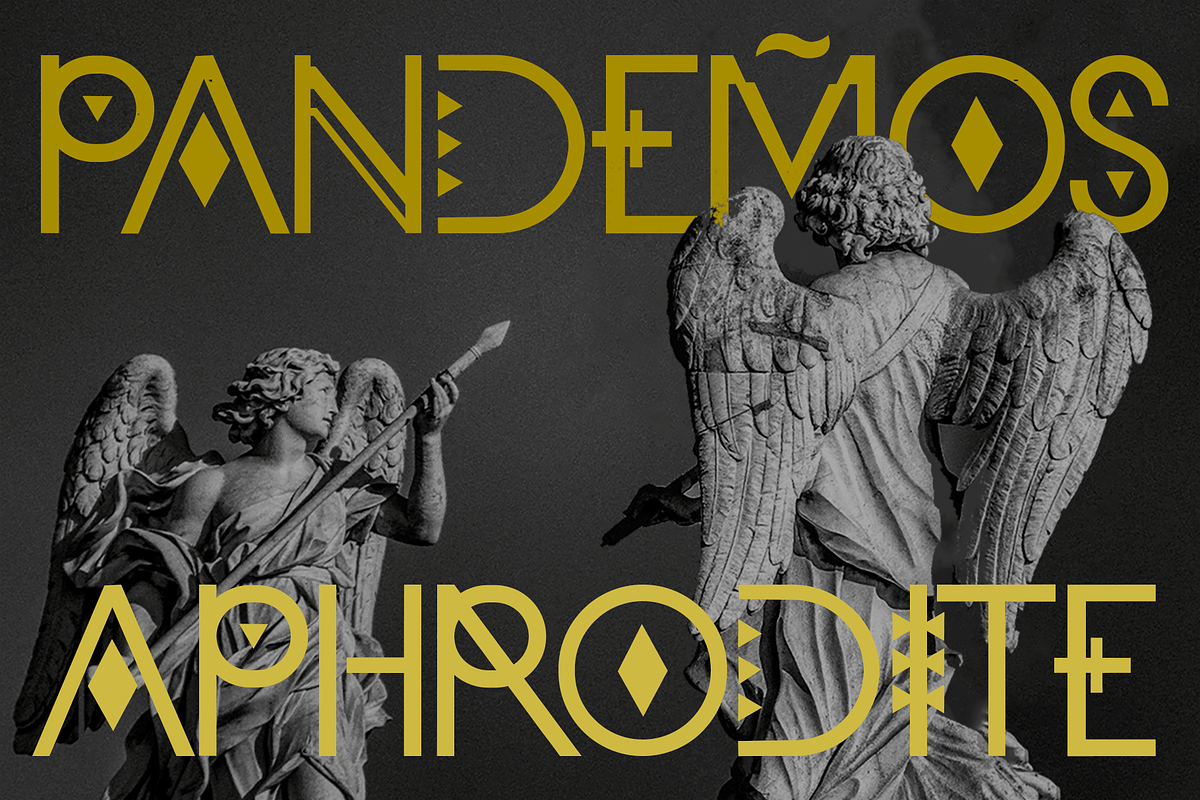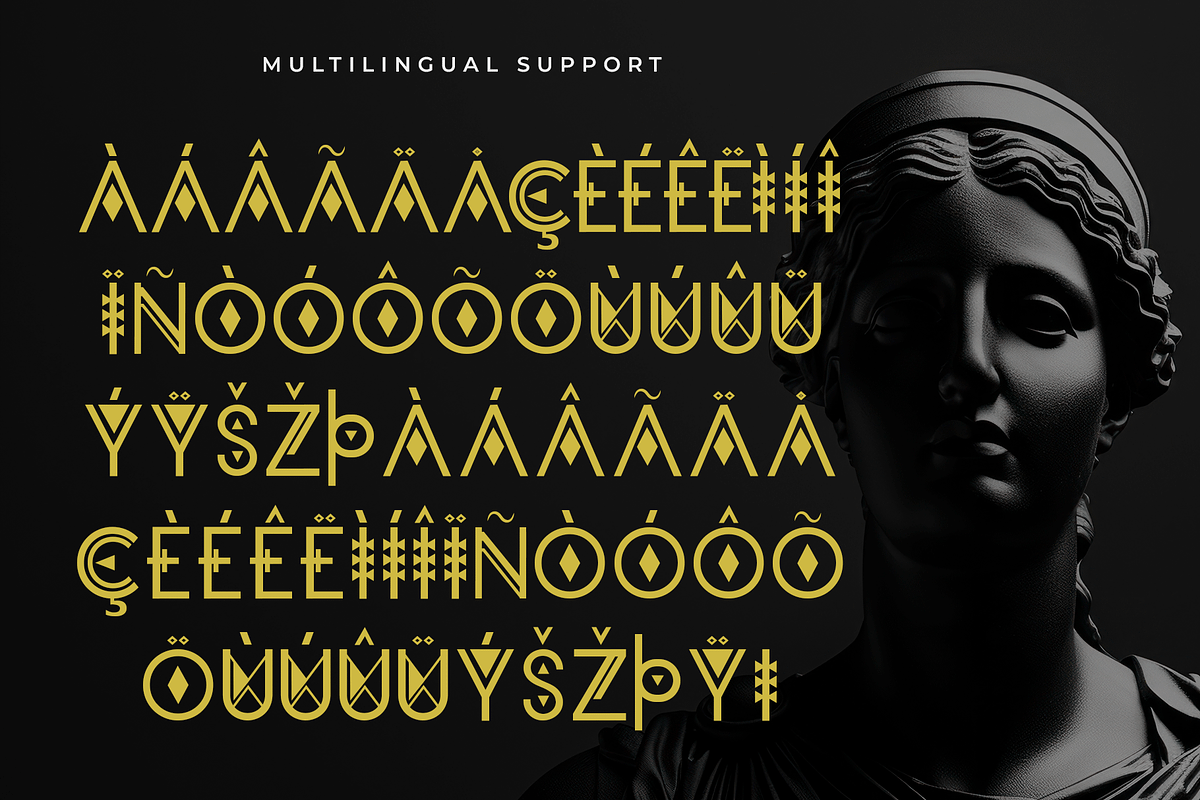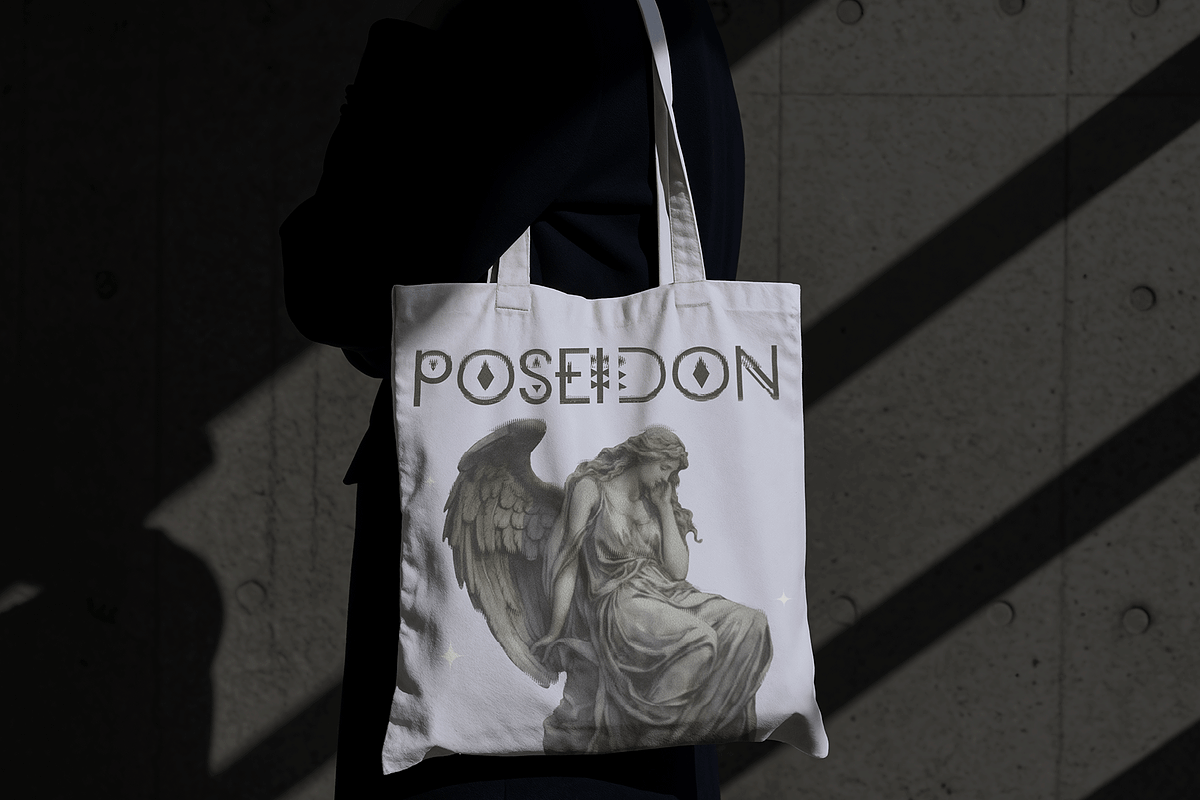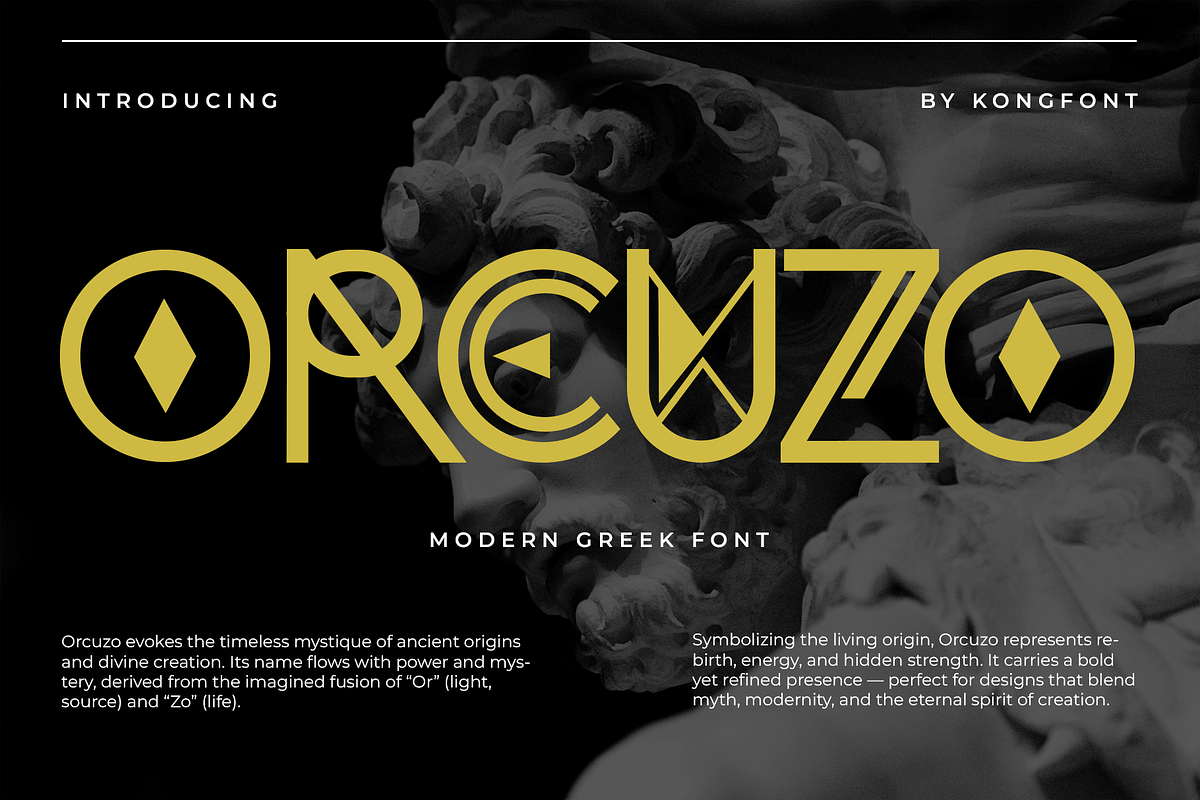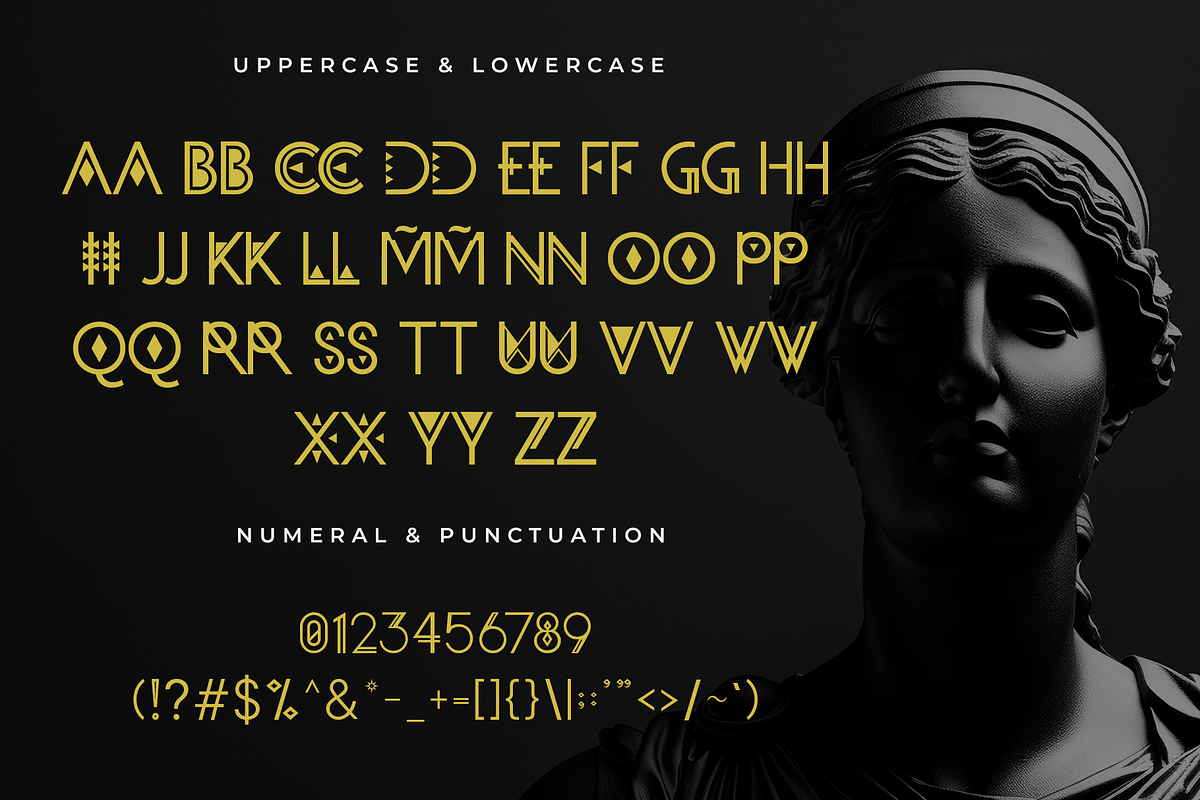
Orcuzo – Modern Greek Font
Orcuzo is a modern Greek font that captures the timeless spirit of classical Greek lettering while embracing a bold, contemporary aesthetic. Designed with precision and elegance, Orcuzo combines geometric structure with subtle curves, giving each letter a refined and balanced appearance.
Ideal for branding, logos, editorial titles, cultural projects, and elegant displays, Orcuzo delivers a sophisticated blend of heritage and innovation. Its clean yet distinctive style makes it perfect for designers who want to evoke the strength and beauty of Greek artistry in a modern context.